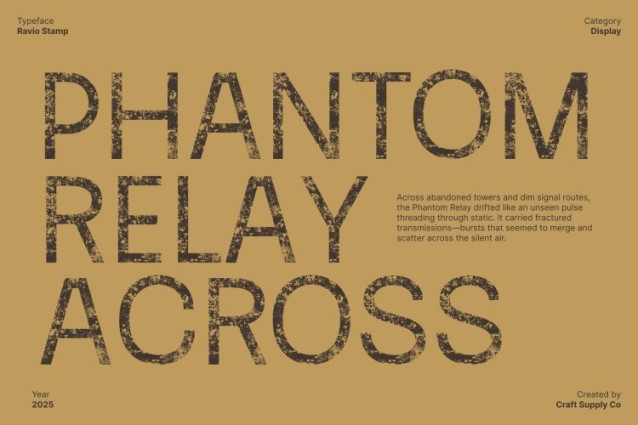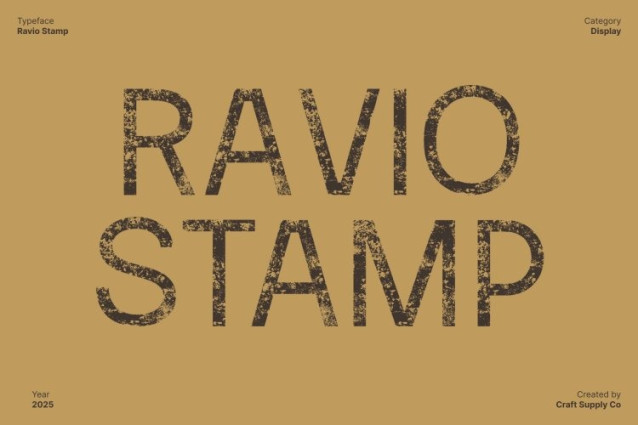
Ravio Stamp Font
Ravio Stamp Font This is a modern sans serif font built with confident, firm lines that project power and precision. Its solid structure and clean geometry create a strong visual presence, making it an excellent choice for designs that demand attention. Every character is crafted to communicate clarity and impact, ensuring your message stands out with authority.
Stamp Texture for an Artistic, Expressive Feel
This font features a distinctive stamp texture that introduces depth, character, and handcrafted charm. The textured surface transforms the clean sans serif shape into something more expressive and artistic, giving each letter a unique, rugged personality. This manual effect adds warmth and authenticity to the font’s modern style.
Perfect for Powerful Headlines and Creative Branding
With its combination of strength and texture, excels in high-impact display settings. Use it for headlines, posters, branding materials, packaging, and visual identities that require a strong, confident look. The textured finish enhances its ability to convey emotion and originality, making it ideal for artistic or expressive design concepts.
Versatile for Modern, Industrial, and Textured Design Themes
This font adapts easily across various creative directions from modern and minimal to rugged and industrial. Its strong sans serif foundation ensures readability and structure, while the stamp texture adds uniqueness and depth.